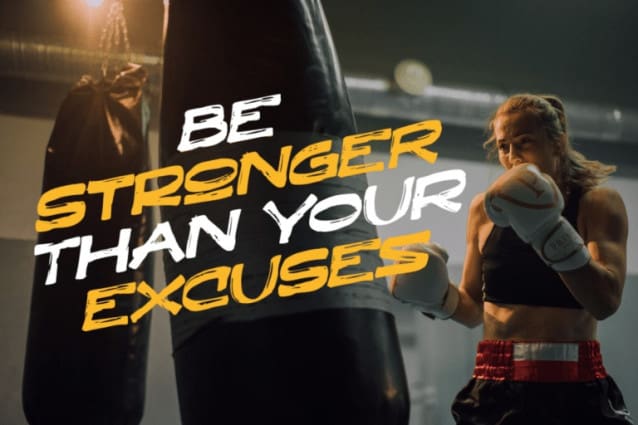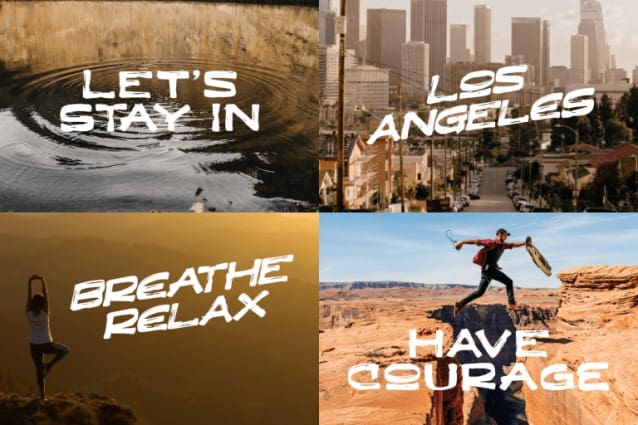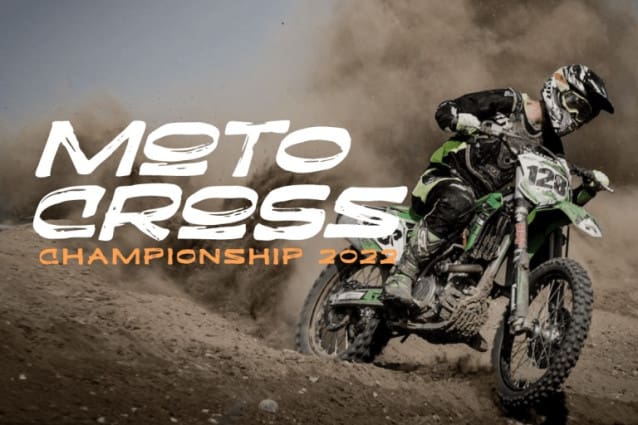
Lunok Brush Font
Lunok Brush Font is an all cap with brush textured, created to make every text look like authentic hand lettering. The all-caps marker typeface is perfect for bold headlines, posters, shirt designs, fashion brands, social media content and funky ads. Mix & match the stylistic alternate or ligature, so that you’ll have lots of different letters for that unique look & feel!